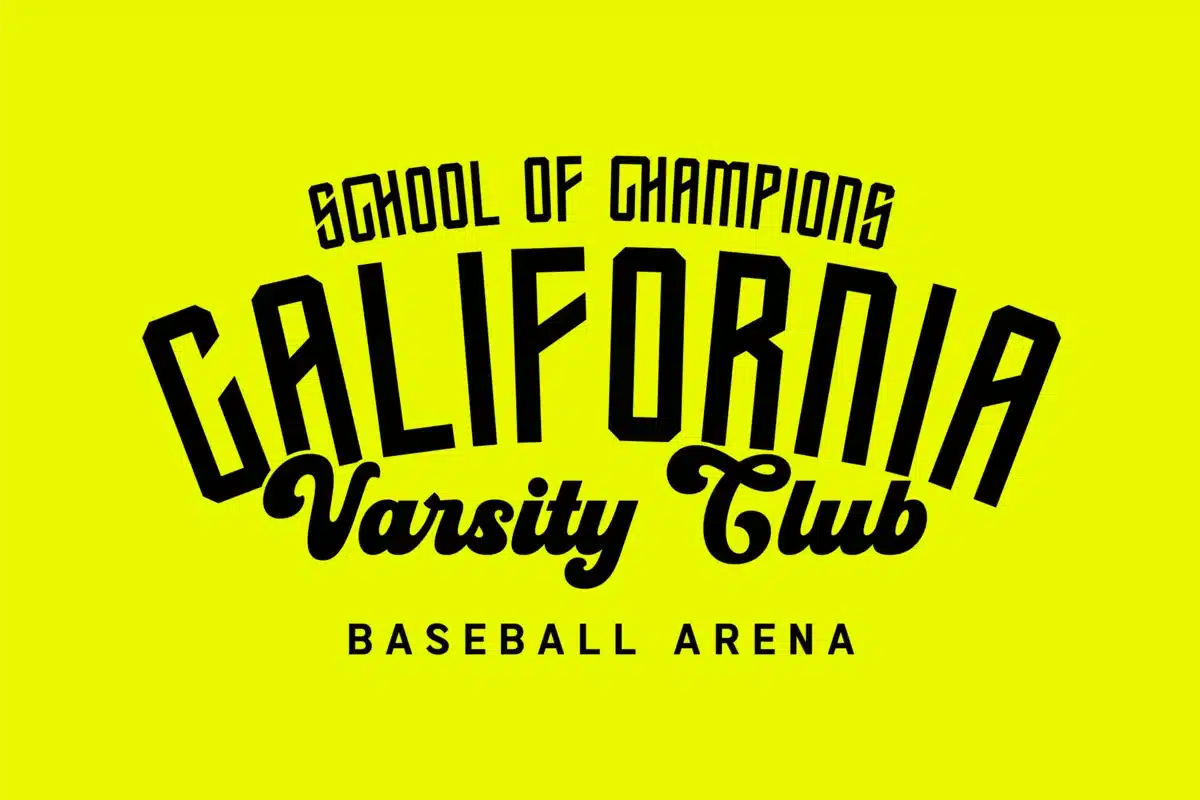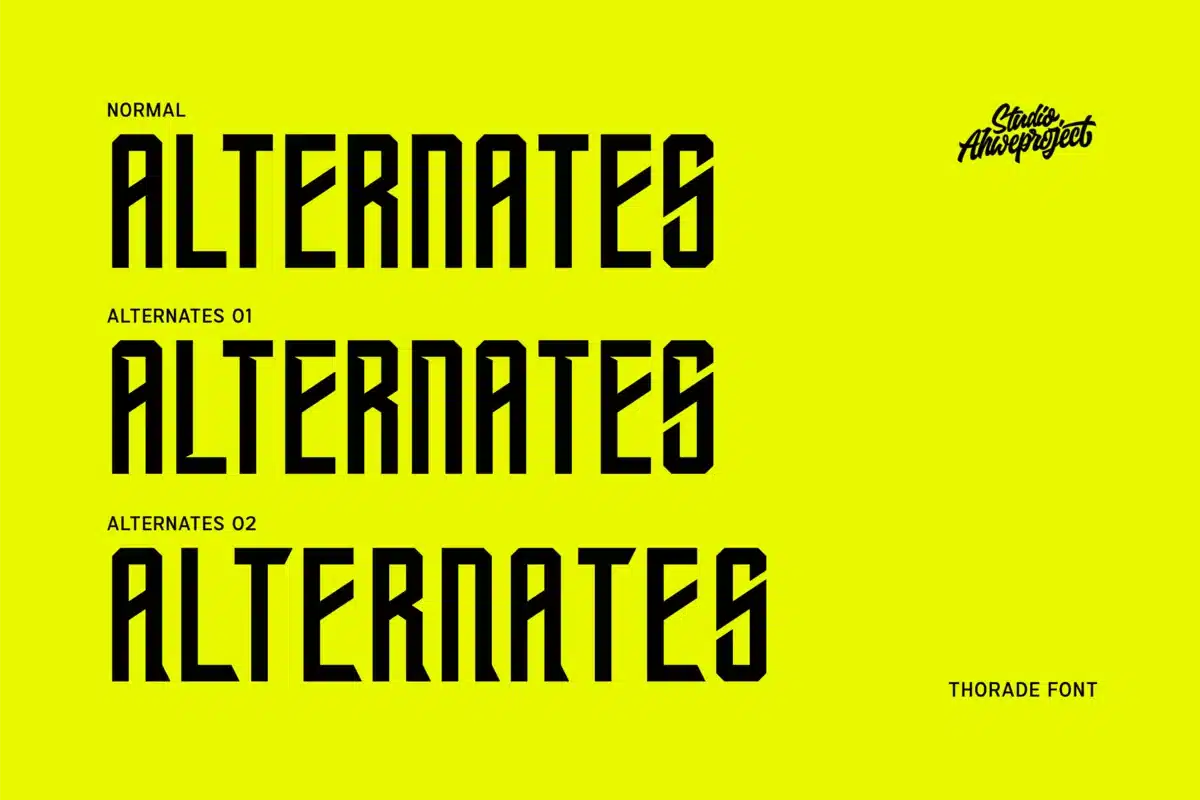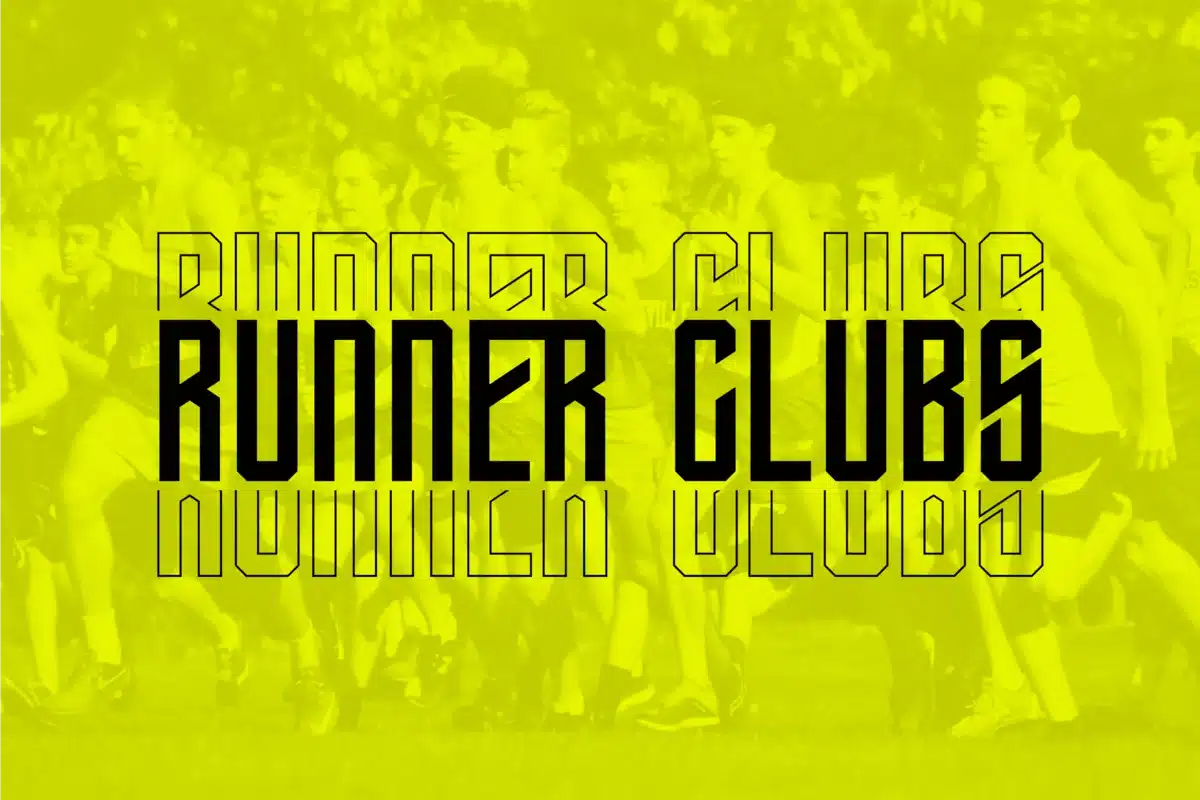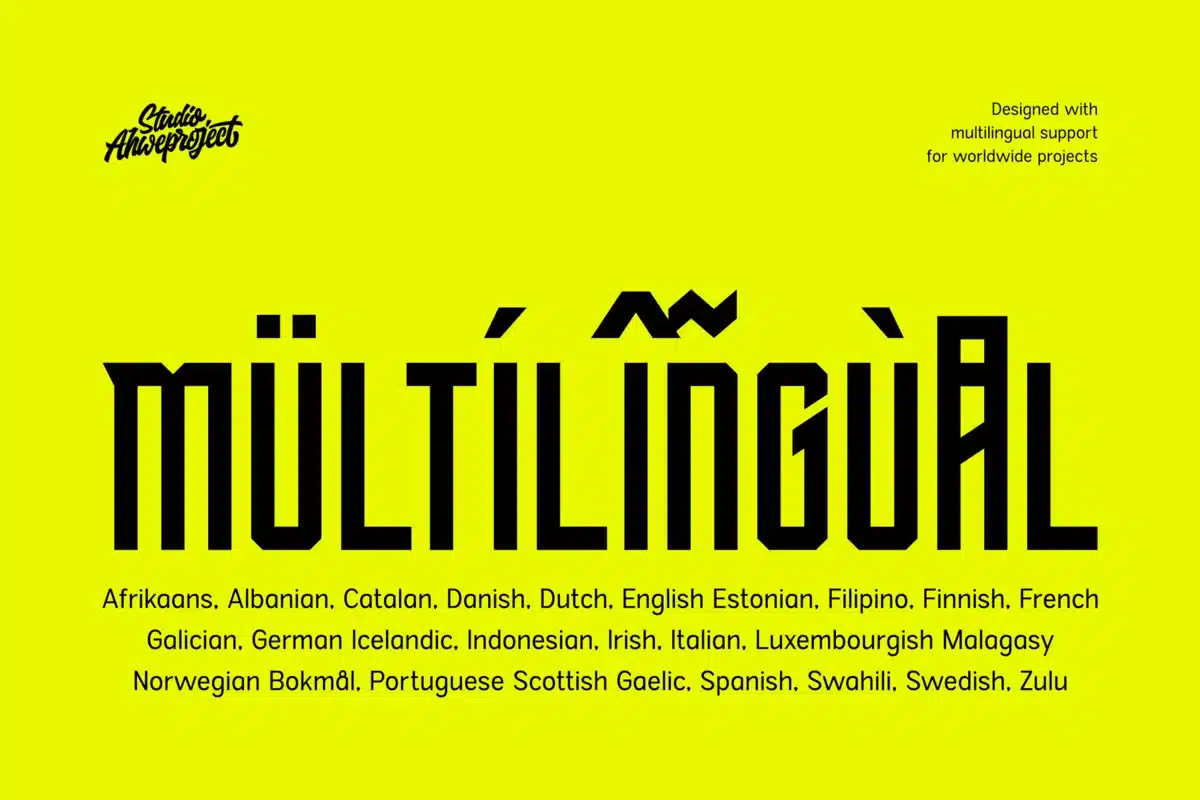
Thorade Font
Thorade is a powerful all-caps display font built to dominate headlines. Inspired by athletic typography and modern sports branding, this typeface delivers strong geometric shapes, sharp angles, and a confident presence that instantly grabs attention.
Designed for impact, Thorade comes in Regular, Outline, and Extrude styles, giving you flexibility to create layered effects, dynamic depth, and eye-catching compositions. Whether you’re designing sports logos, posters, esports branding, or bold social media content, this font ensures your message stands out.
Its structured letterforms and aggressive cuts make it perfect for projects that demand strength, energy, and authority.
Why Choose Thorade?
- Bold all-caps display font
- Strong athletic and sports-inspired style
- Includes Regular, Outline & Extrude versions
- Perfect for logos, posters, headlines, and branding
- Clean geometric structure with modern edge
- Easy to mix and layer for powerful visual impact
- If your design needs intensity, confidence, and high visibility — Thorade delivers.
- Uppercase & lowercase
- Numbers and punctuation